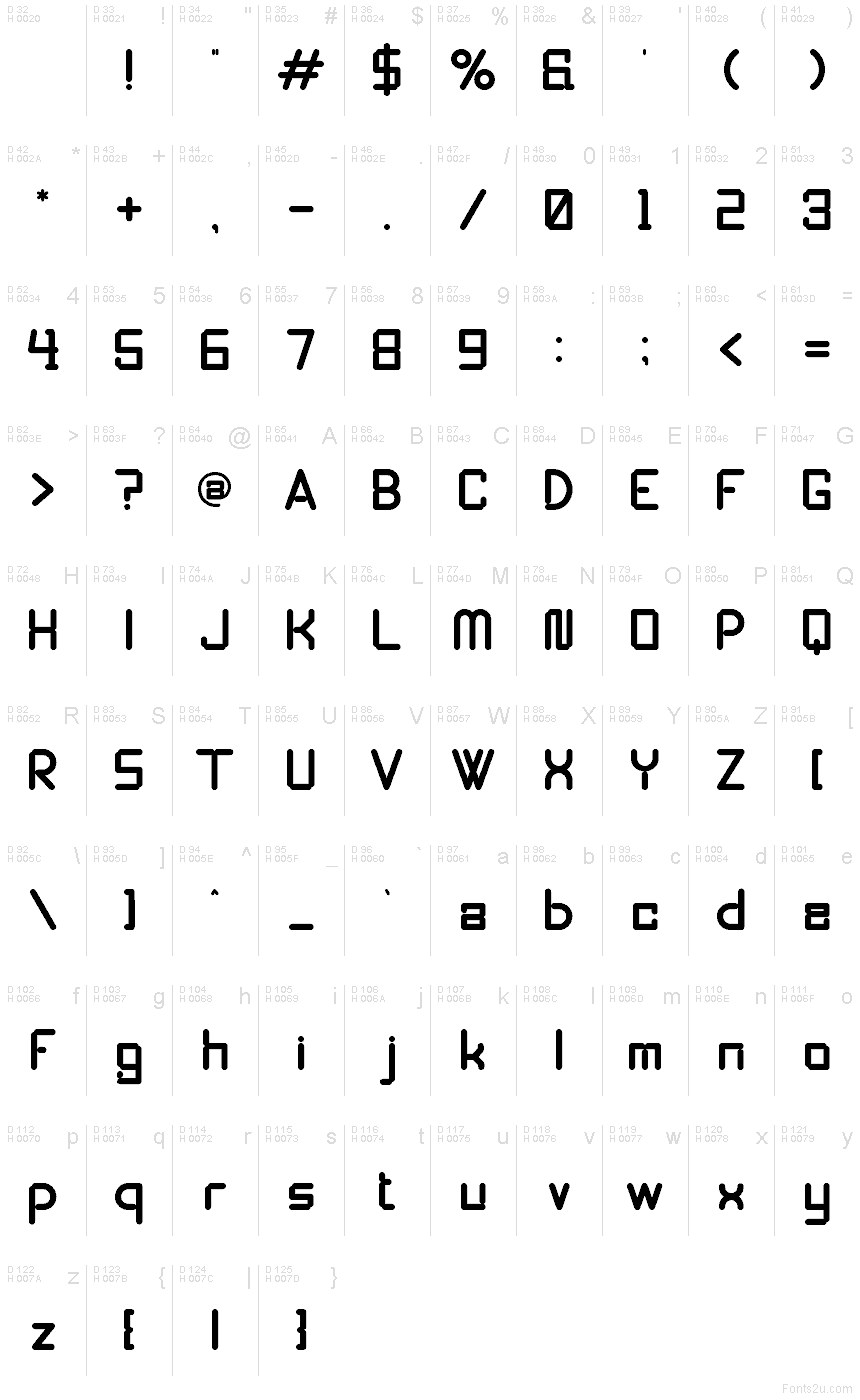
Riluxes Regular
Riluxes font by Ermedia Studio is a free techno display font that fixes a common gripe with futuristic type: it looks sleek without sacrificing warmth or clarity. Its monoline strokes, rounded ends, and modular rhythm feel like soft-touch plastic—streamlined yet friendly—so headlines read cleanly even at tighter spacing. Smooth corners and open shapes keep the flow consistent, giving you that sci‑fi vibe without the harsh edges.
Using Riluxes, your titles snap into place on esports branding, sci‑fi posters, app dashboards, streaming overlays, gadget packaging, and event flyers. The steady stroke weight creates a cohesive, neon‑ready look that holds up on screens and print. For a simple pairing, match this free font with a clean geometric sans for body copy and add a hint of extra letterspacing for UI labels.